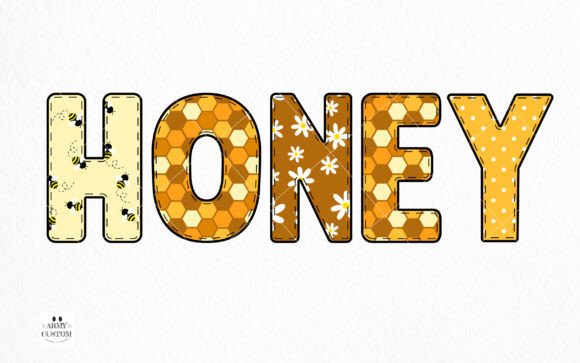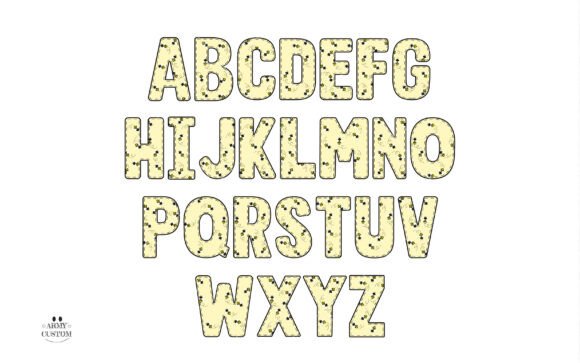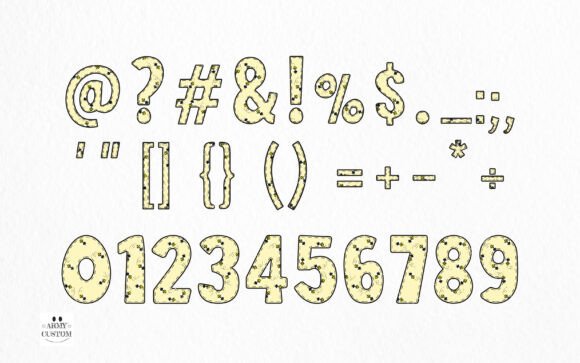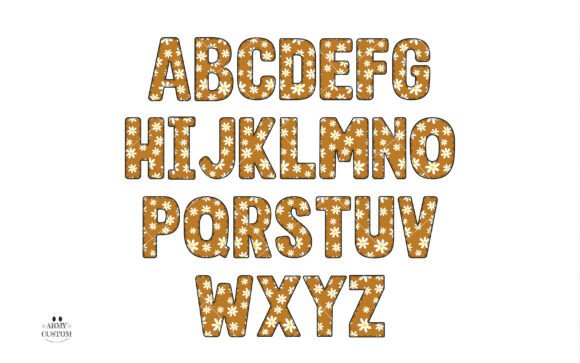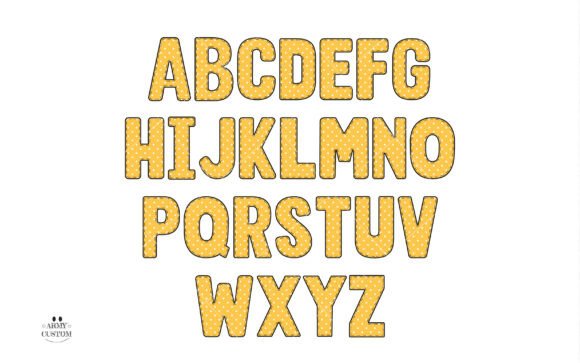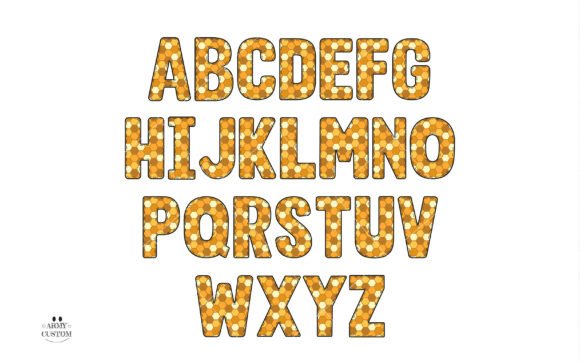
The Sweet Charm of Bee Font: A Designer’s Delight
I’ll never forget the day I stumbled upon the Bee Army font while working on a project for a client’s bee-themed wedding. I was on a mission to find the perfect font that would capture the whimsical and romantic essence of the event. As I scrolled through my font library, I discovered the Bee Font, and it was love at first sight! The intricate details, the playful vibe, and the emotional resonance – it was exactly what I needed to bring my design to life.
As a designer, I’m always on the lookout for fonts that can help me express my creativity and bring a unique touch to my projects. Here’s what I love about the Bee Font:
• ✨ Unique and eye-catching design that adds a touch of whimsy to any project
• ✅ Beautiful OpenType features, glyphs, and stylistic alternates that offer endless creative possibilities
• ✅ Perfect for a variety of design projects, from wedding invitations to craft projects
However, there are a few quirks to be aware of:
The Story Behind Bee Font: A Designer Inspiration
The Bee Font was inspired by the humble bee and its incredible social structure. The designer wanted to capture the essence of the bee’s community and its symbolism of love, hard work, and creativity. The result is a font that’s both playful and sophisticated, perfect for designers who want to add a touch of whimsy to their projects.
What kind of projects is Bee Font suitable for? Bee Font is perfect for a variety of design projects, including wedding invitations, craft projects, and creative designs that require a touch of whimsy and elegance.